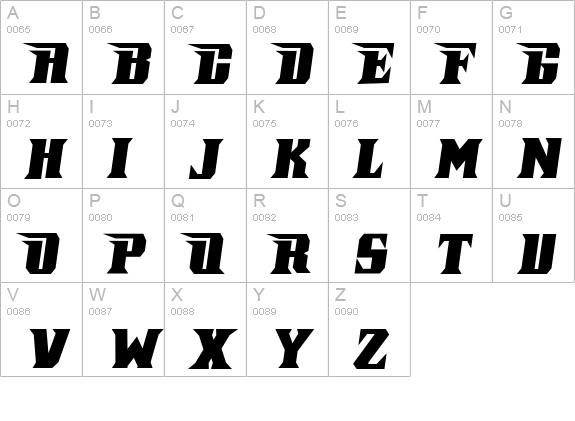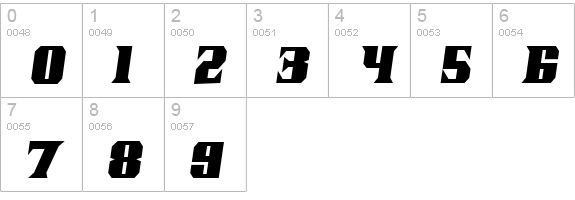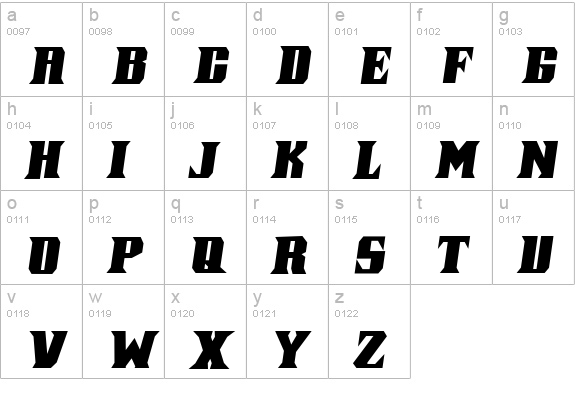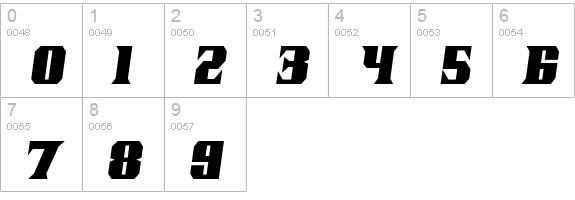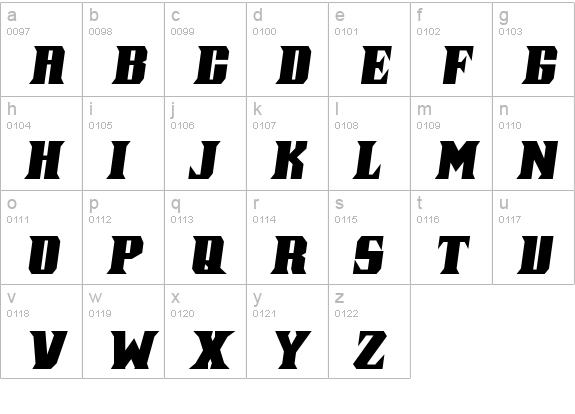
Introducing Pirate Incognito, a bold and daring font that captures the spirit of adventure and mystery. This unique typeface is perfect for creating eye-catching designs that transport you to the high seas, where pirates roam and treasures await. Pirate Incognito features intricate details and sharp edges, reminiscent of a pirate's cutlass. Its carefully crafted letterforms embody the essence of secrecy and disguise, making it the ideal choice for projects that demand a touch of intrigue. This font's versatility knows no bounds, as it can be used for a wide range of design projects. Whether you're designing a poster for a pirate-themed party, creating a logo for a swashbuckling brand, or crafting an invitation to a treasure hunt, Pirate Incognito will bring your ideas to life. And the best part? Pirate Incognito is available for free download at FontsMarket.com. Yes, you read that right. This captivating font can be yours without spending a single doubloon. Simply head over to FontsMarket.com, and start creating your own pirate-inspired masterpieces today. So, set sail on your creative journey with Pirate Incognito. Bring a touch of adventure to your designs, and let this font transport your audience to a world of hidden treasures and thrilling escapades. Download Pirate Incognito for free and unleash your inner pirate today!